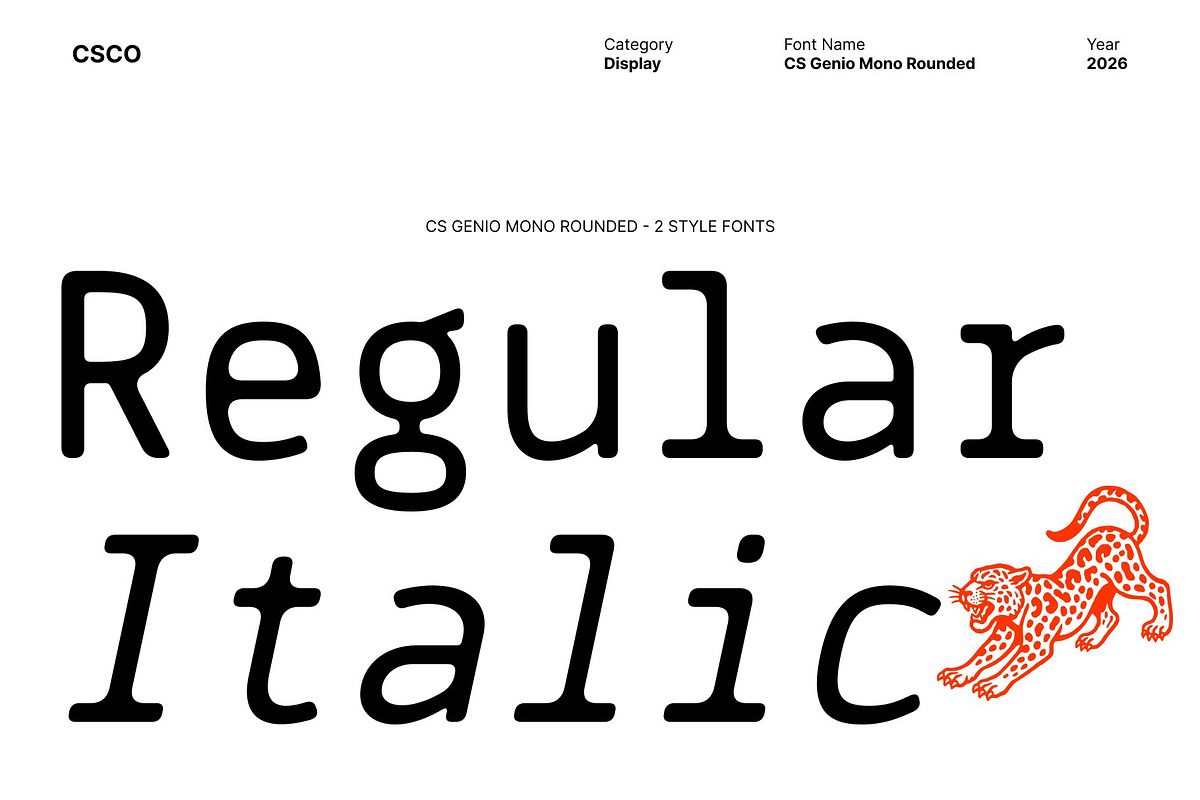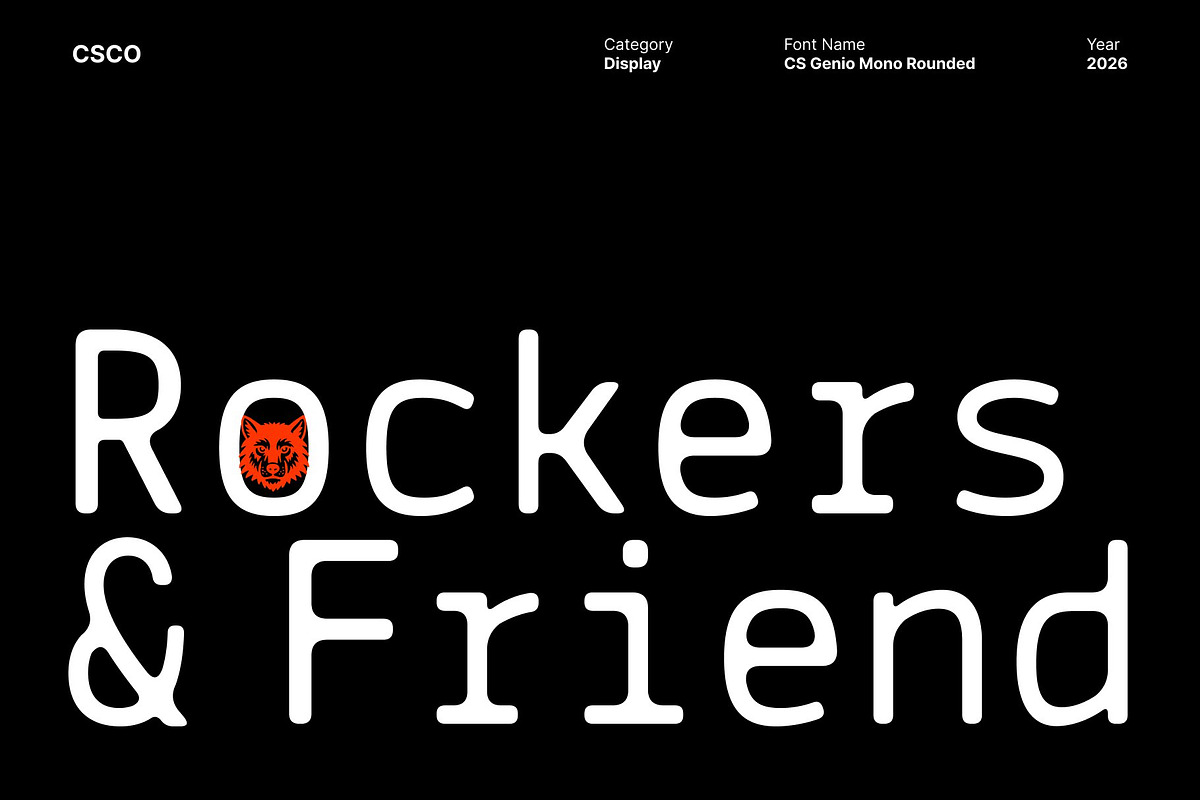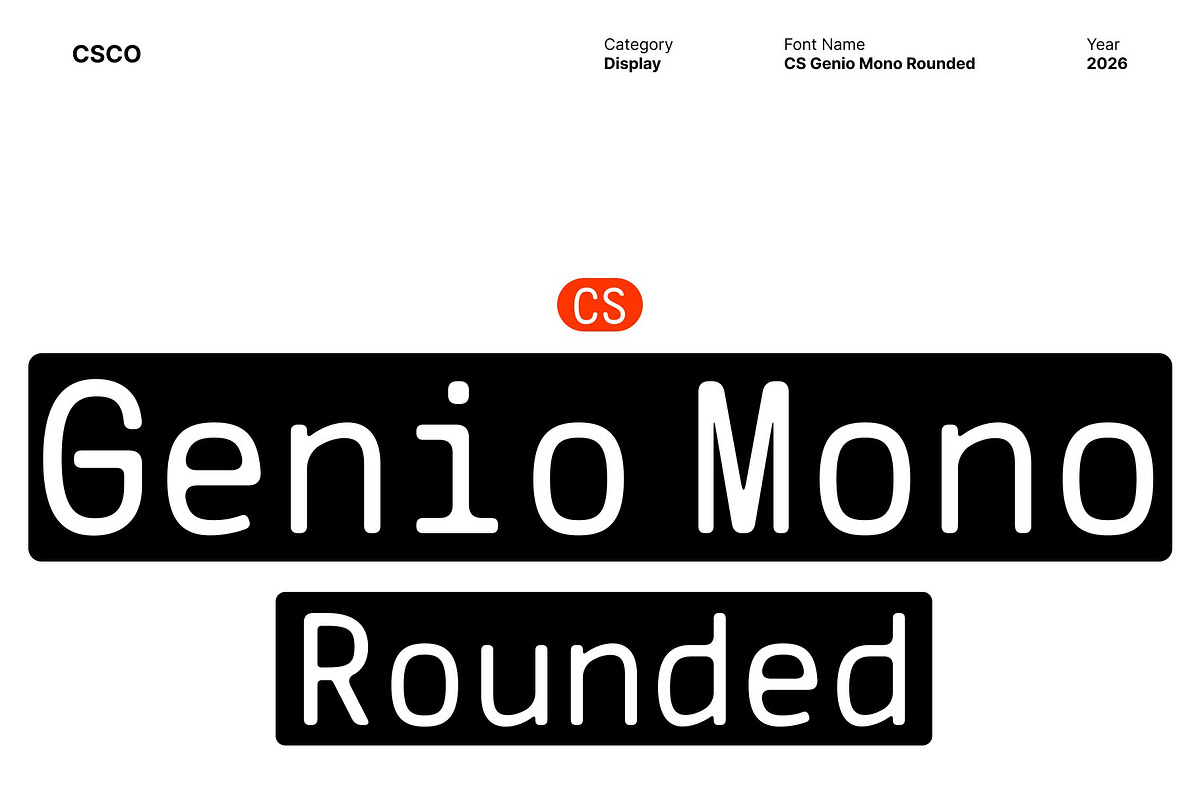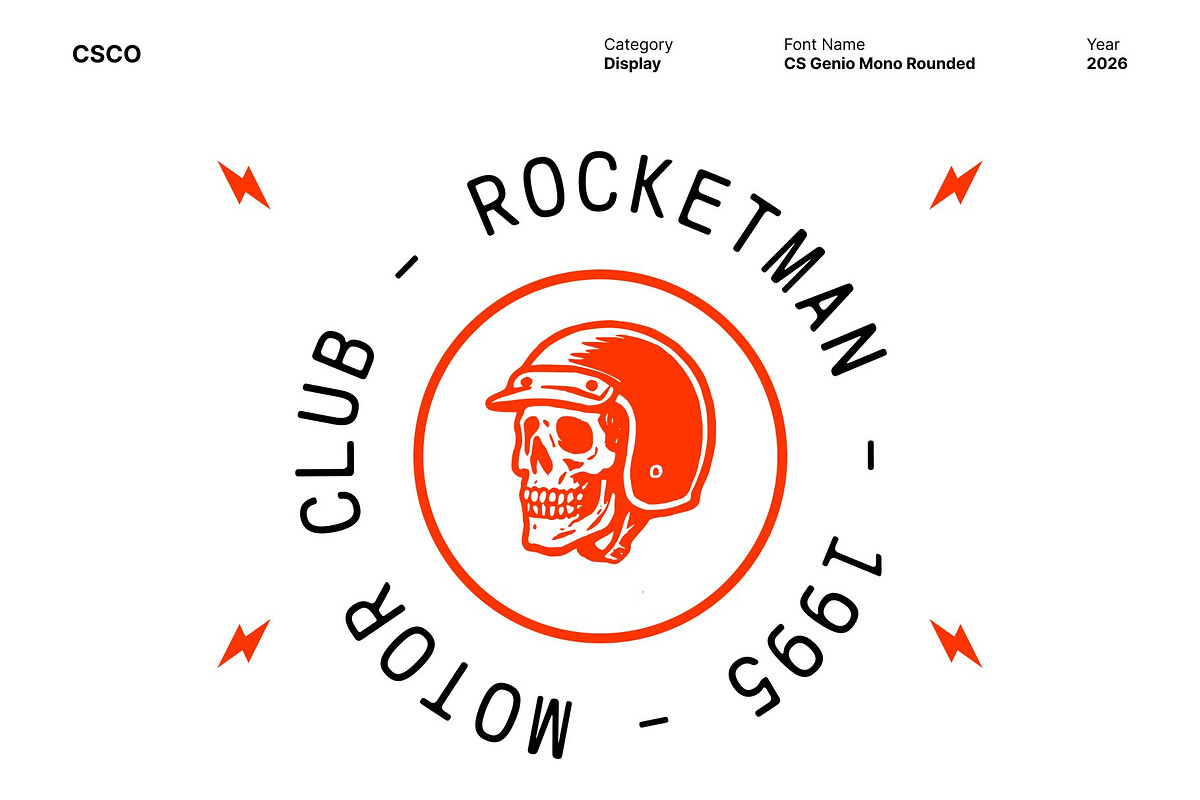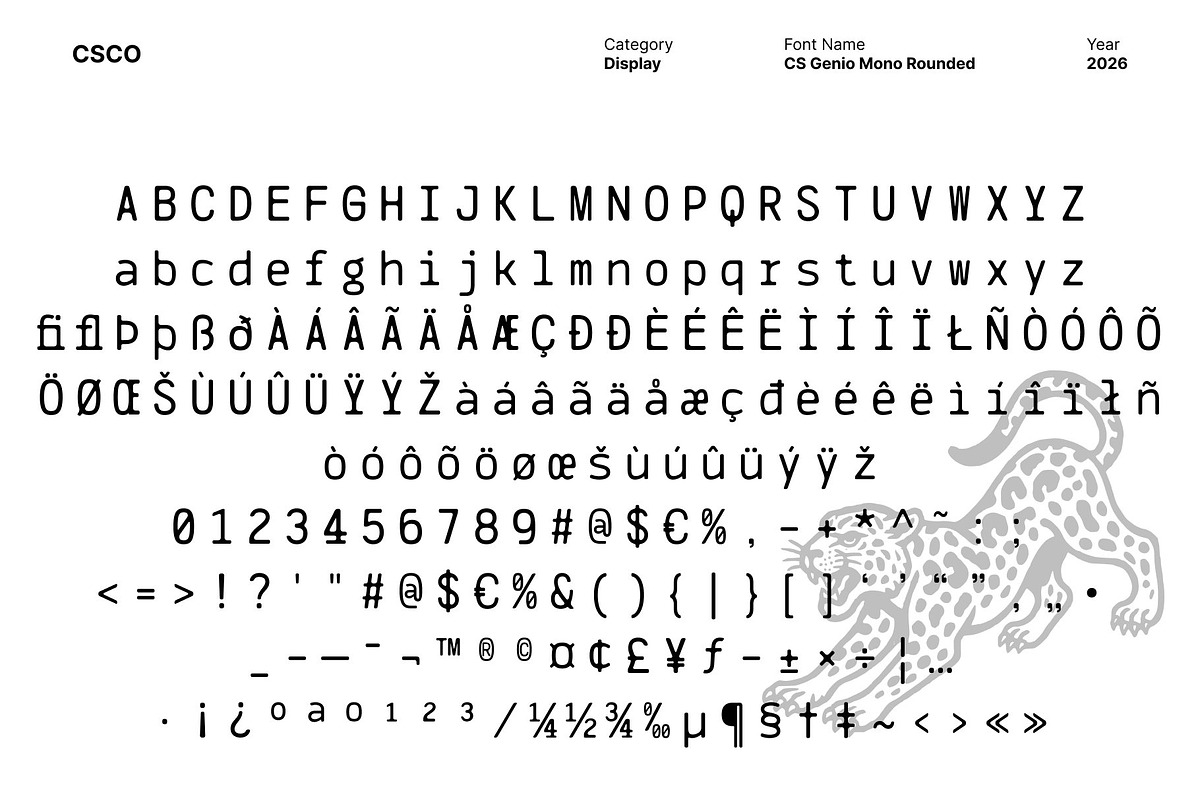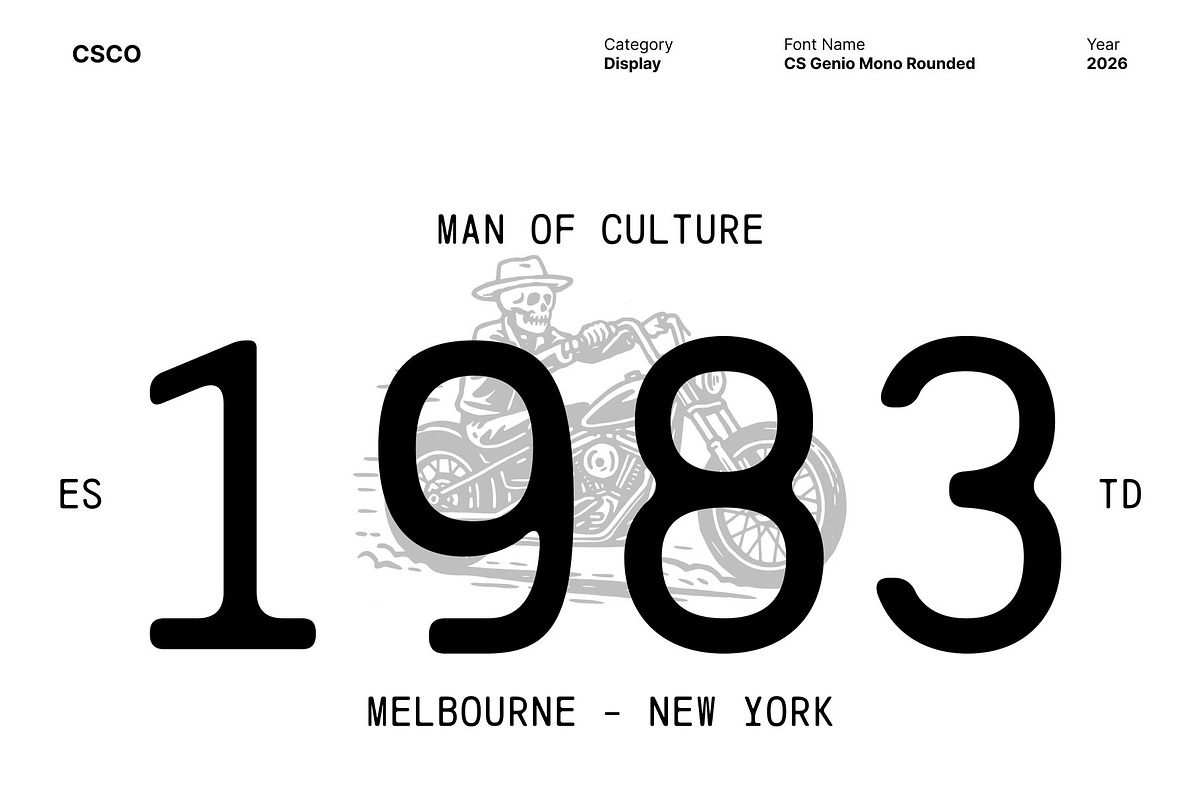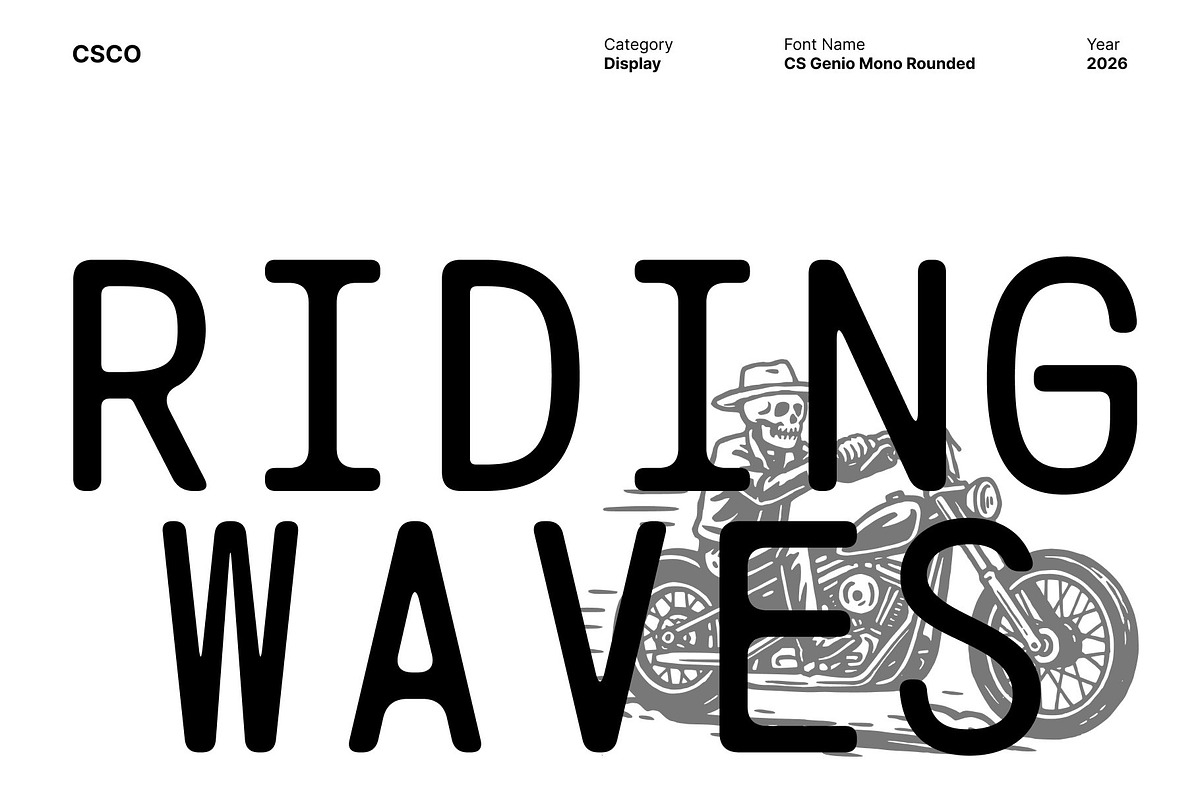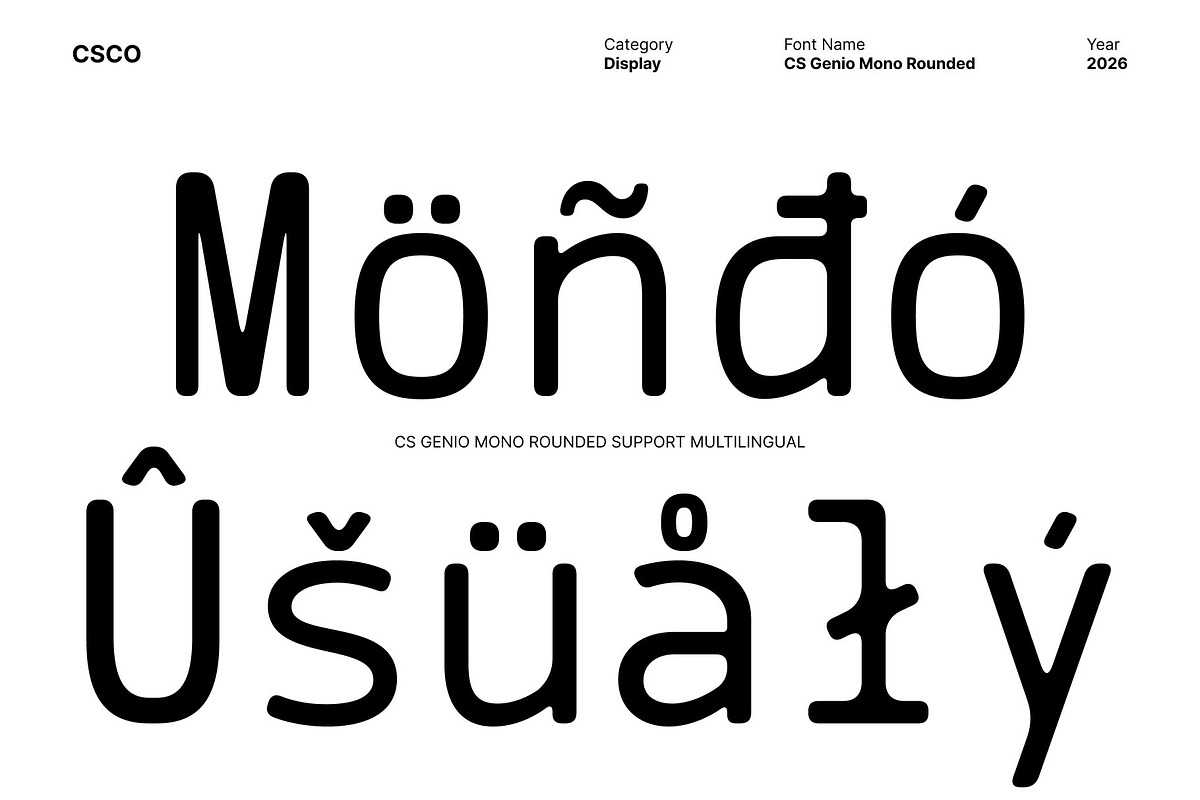
CS Genio Mono Rounded
Monospaced Typeface: Essential Simplicity with a Friendly Modern Feel
Clean, Uncomplicated Design This is a modern monospaced sans serif typeface that emphasizes essential simplicity and clarity. Its clean, uncomplicated structure ensures strong readability while delivering a balanced and contemporary visual presence.
Designed for Modern Applications Well-suited for responsive web design, digital interfaces, and minimal yet elegant branding, this font performs beautifully across modern design contexts. The monospaced construction supports visual consistency, while the straightforward forms maintain a professional and reliable appearance.
Clear at Any Size One of the defining strengths of this is its ability to remain clear and legible at both small and large sizes. Whether used for body text, headlines, or graphic elements, the font maintains visual stability and readability across a wide range of uses.
Soft, Friendly, and Versatile The rounded shapes add a soft, clean, and approachable character, creating a friendly and relaxed impression without sacrificing clarity. This makes ideal not only for technical and digital projects, but also for logos, branding, product packaging, headlines, cheerful posters, and invitation or greeting card designs.
- CS Genio Mono Rounded Regular
- CS Genio Mono Rounded Italic